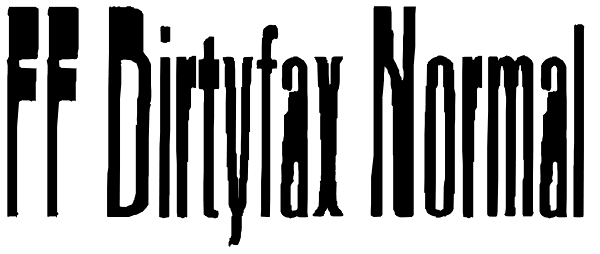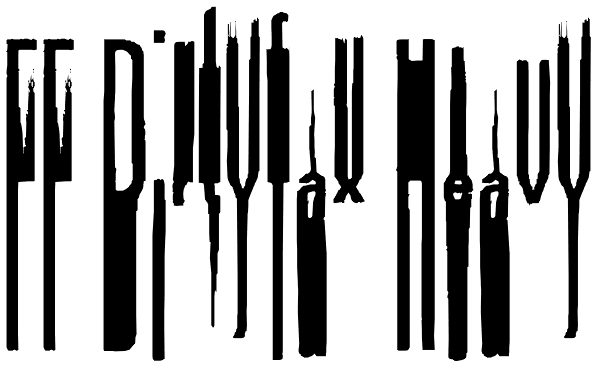
FF Dirtyfax
German type designer Fabian Rottke created this display FontFont in 1995. The family contains 2 weights: Regular and Heavy and is ideally suited for film and tv, music and nightlife, poster and billboards as well as software and gaming. FF Dirtyfax...
FF Dirtyfax Normal
FF Dirtyfax Heavy